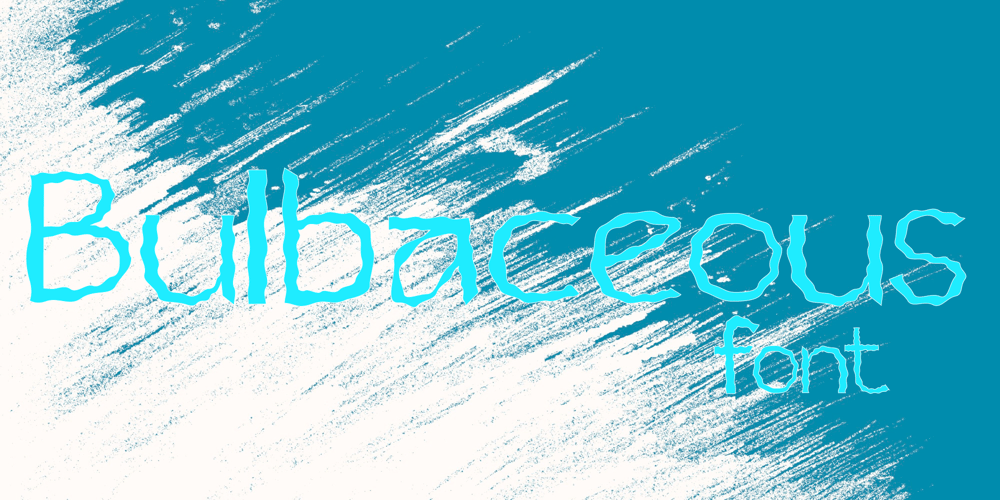
Bulbaceous Font Family was designed by Sol Hess and published by Arkalandara. Bulbaceous contains 1 styles and family package options. Handwriting in the style of the airwaves dances across the page with an ethereal grace, mimicking the fluidity and spontaneity of radio frequencies weaving through the atmosphere. Each stroke of the pen resembles a waveform, undulating and curving like sound waves oscillating through space.The lines of text flow seamlessly, as if carried by invisible currents of energy. Sharp angles and rigid edges are replaced by soft, sweeping arcs that mirror the gentle undulations of radio signals. The spacing between letters and words feels dynamic, creating a sense of constant motion, much like the ever-shifting frequencies of the airwaves